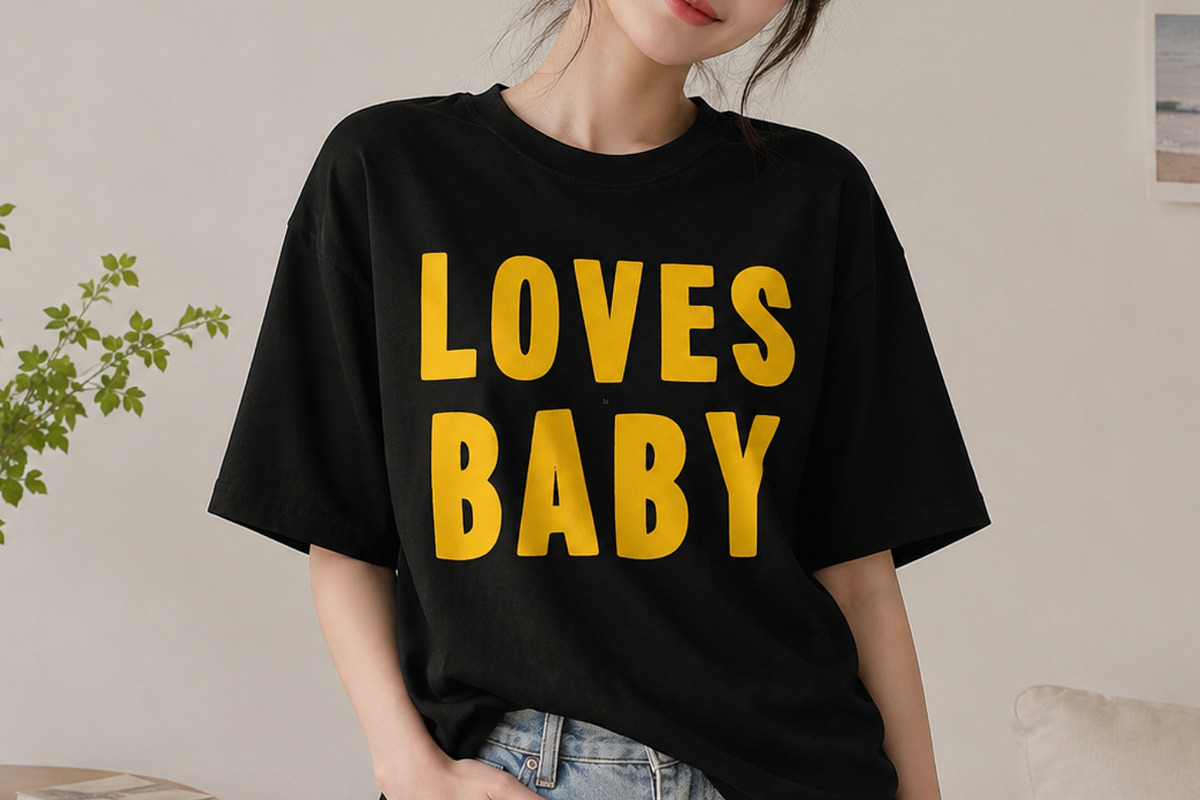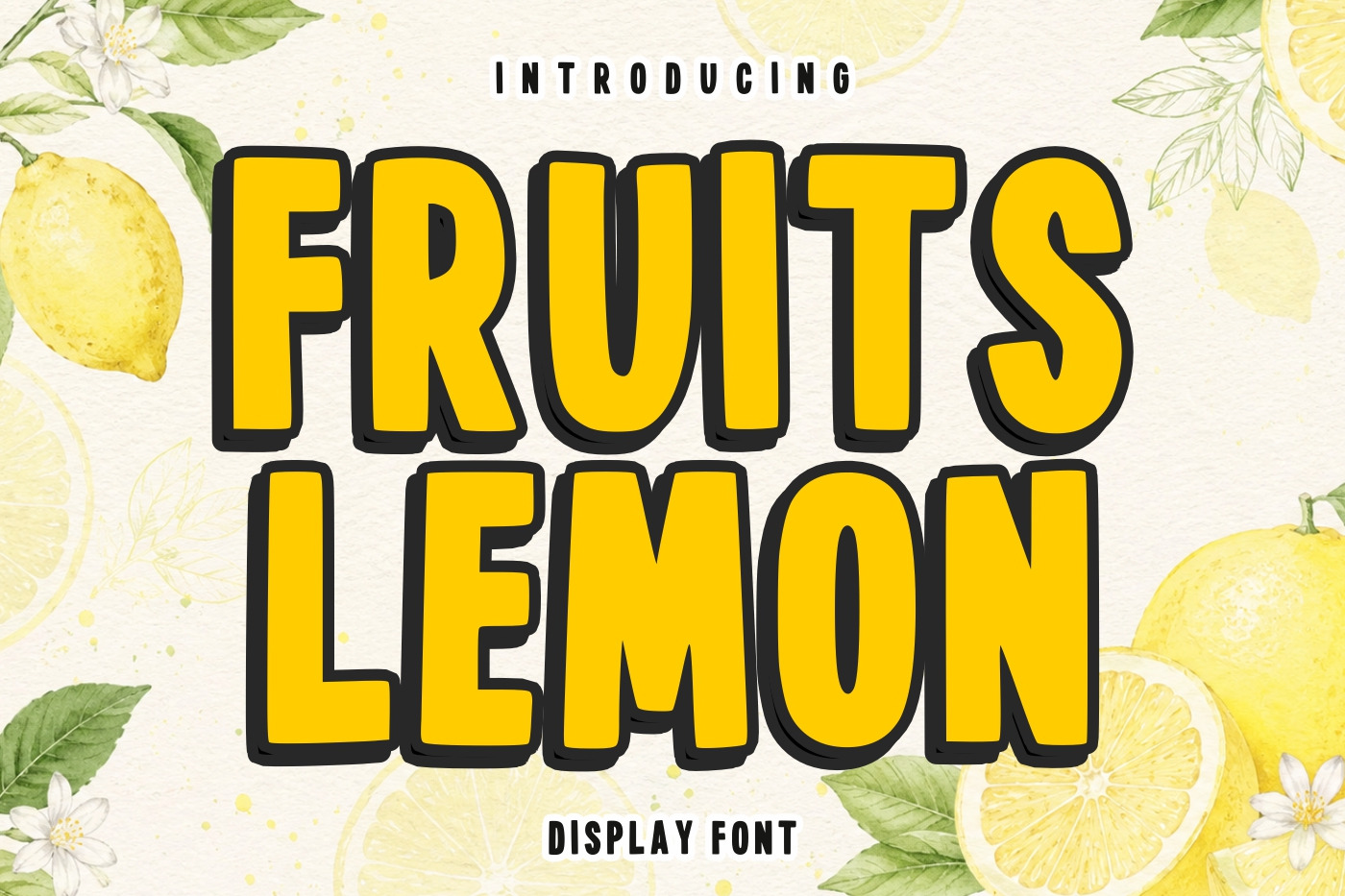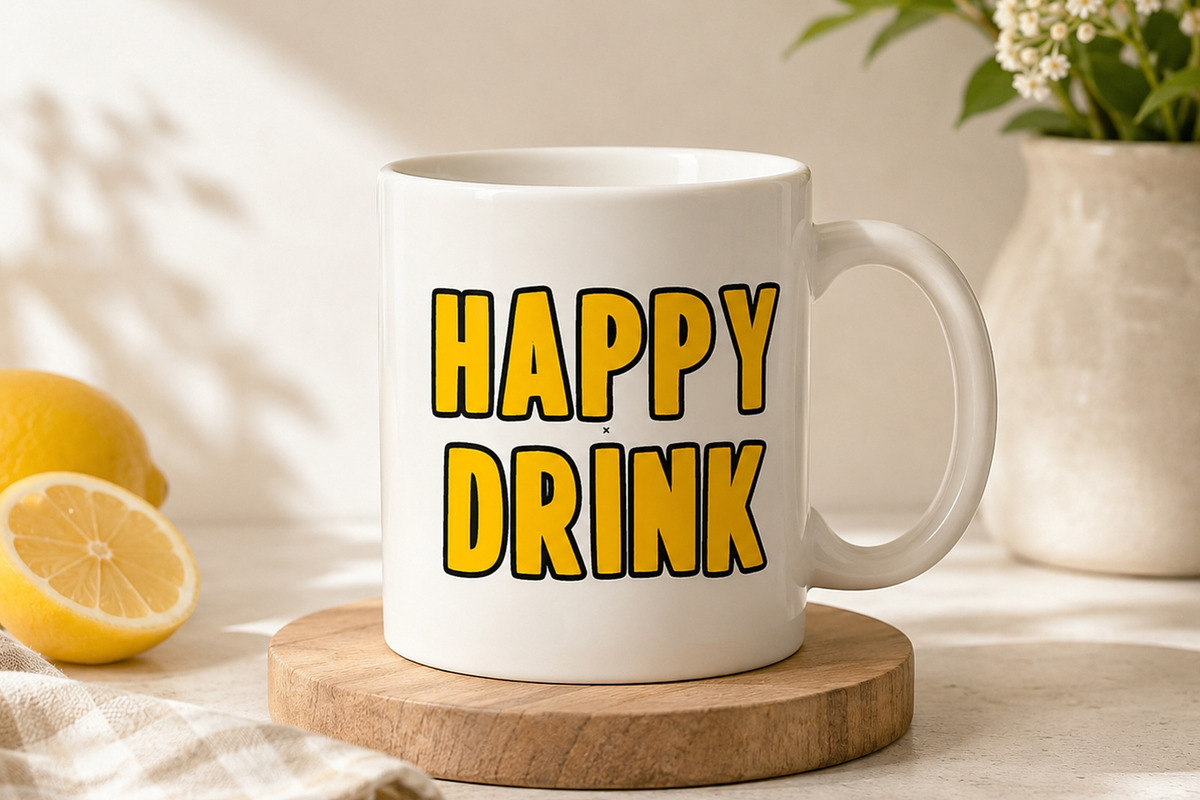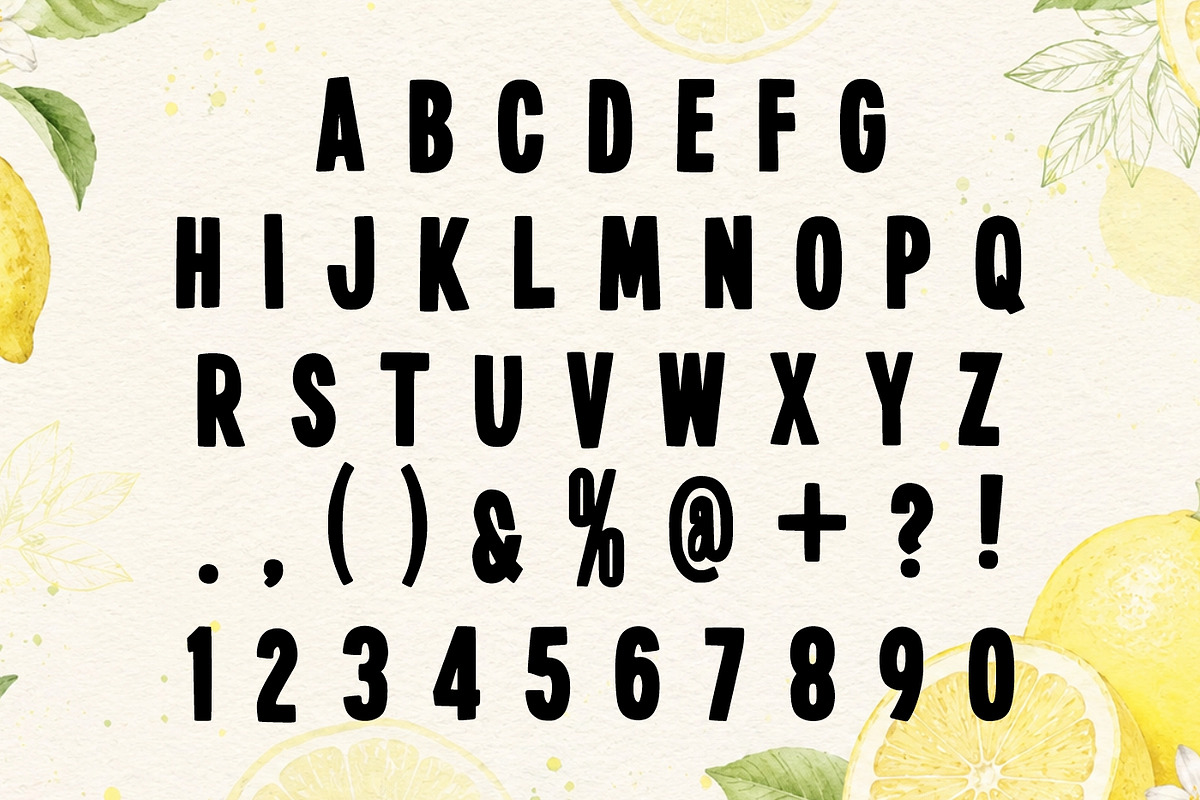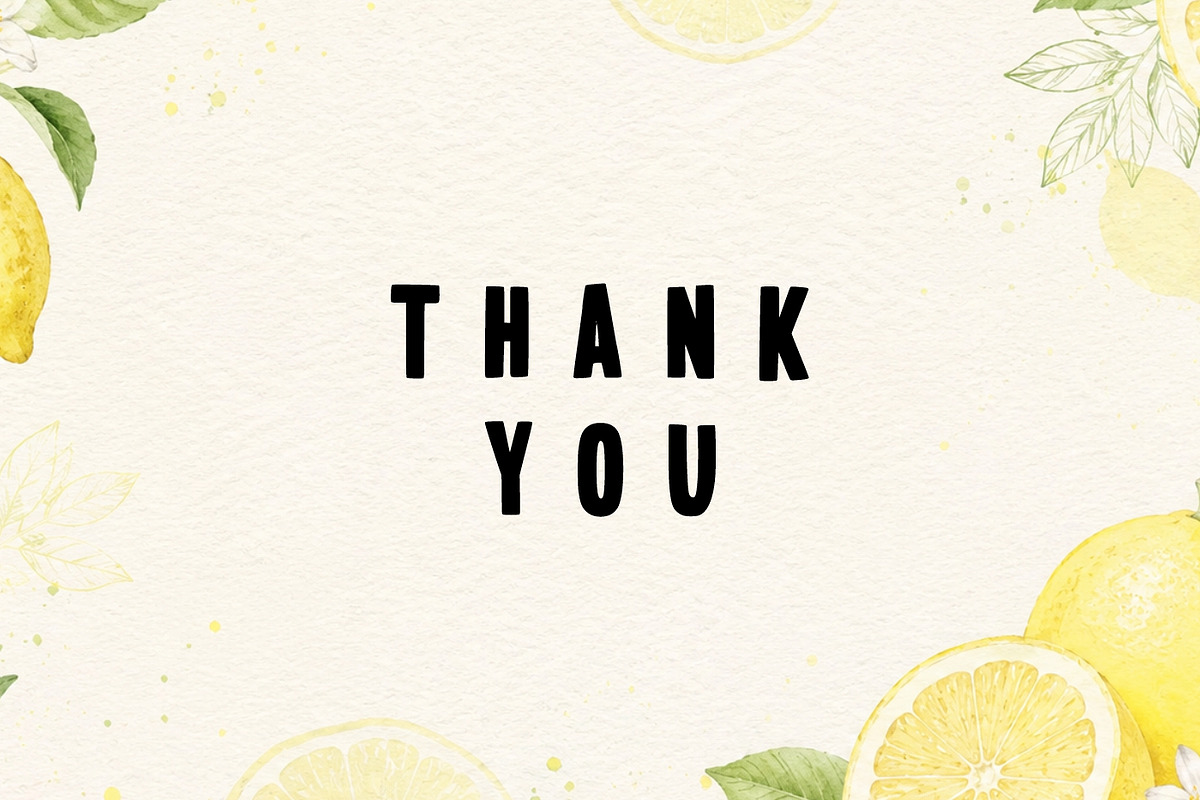
Fruits Lemon Font
Fruits Lemon Font, a cheerful and refreshing display typeface inspired by the bright colors and energetic spirit of fresh lemons. With its bold letterforms, playful curves, and friendly personality, this font is perfect for designs that need a fun, vibrant, and eye-catching appearance.
Designed to capture the essence of summer, freshness, and happiness, Fruits Lemon Display Font works beautifully for food branding, beverage packaging, fruit-themed products, farmers market promotions, restaurant menus, social media graphics, children’s projects, stickers, posters, and creative merchandise. The thick characters and playful style ensure excellent readability while adding a lively and energetic touch to every design.
Whether you’re creating branding for a lemonade stand, citrus product labels, summer event promotions, kids’ apparel, greeting cards, or colorful packaging, this font delivers a joyful and memorable visual impact. Its bold display style makes headlines stand out while maintaining a friendly and approachable feel.
Add a splash of sunshine and freshness to your creative projects with Fruits Lemon Display Font and make every design feel bright, fun, and full of personality.